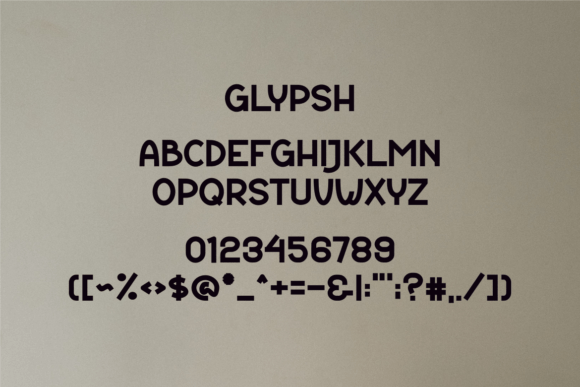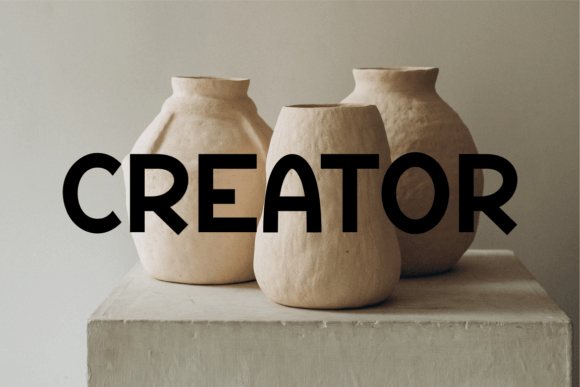
Creakof Font: The Perfect Bold Font for Novelty Makers and Crafters
Are you a designer or crafter looking for a font that can add a touch of uniqueness to your handmade products? Look no further than the Creakof Font. This bold font is specifically designed for novelty makers and crafters who want to add a personal touch to their products. In this article, we’ll explore the features of the Creakof Font and why it’s perfect for handmade products.
The Firm yet Soft Side of Creakof Font
One of the standout features of the Creakof Font is its firm yet soft side. Each letter is carefully crafted to have a bold and sturdy appearance, giving it a sense of confidence and strength. However, despite its firmness, the font still has a soft side that prevents it from looking too stiff or rigid. This balance of firmness and softness makes the Creakof Font perfect for adding a touch of personality to your handmade products.
The firmness of the font can be attributed to its bold lines and sharp edges. Each letter is carefully crafted to have a clear and defined shape, making it easy to read and recognize. On the other hand, the soft side of the font comes from its subtle curves and rounded edges. These curves and edges give the font a friendly and approachable feel, making it perfect for handmade products that require a personal touch.
Why Creakof Font is Perfect for Handmade Products
The Creakof Font is specifically designed for handmade products, and for good reason. The font’s unique blend of firmness and softness makes it perfect for adding a touch of personality to your products. Whether you’re creating handmade jewelry, crafts, or other products, the Creakof Font can help you stand out from the crowd.
One of the main reasons why the Creakof Font is perfect for handmade products is that it’s attention-grabbing. The font’s bold lines and sharp edges make it easy to notice, and its soft curves and rounded edges make it friendly and approachable. This combination of features makes the Creakof Font perfect for adding a touch of uniqueness to your products and making them stand out from the crowd.
How to Use Creakof Font to Enhance Your Handmade Products
In conclusion, the Creakof Font is a bold and unique font that’s perfect for novelty makers and crafters. Its firm yet soft side makes it perfect for adding a touch of personality to handmade products, and its attention-grabbing features make it easy to notice. Whether you’re creating handmade jewelry, crafts, or other products, the Creakof Font can help you stand out from the crowd. So why not give it a try and see how it can enhance your handmade products?